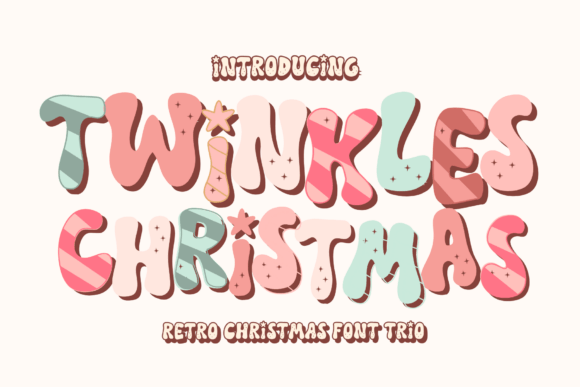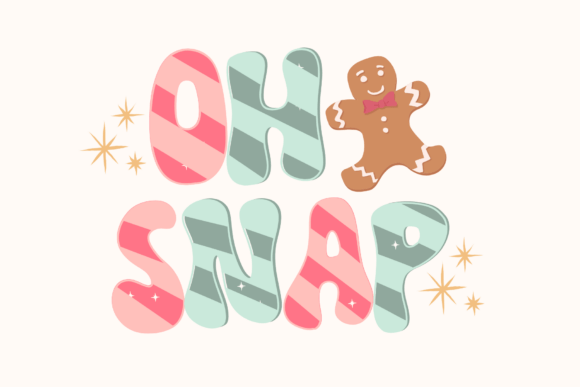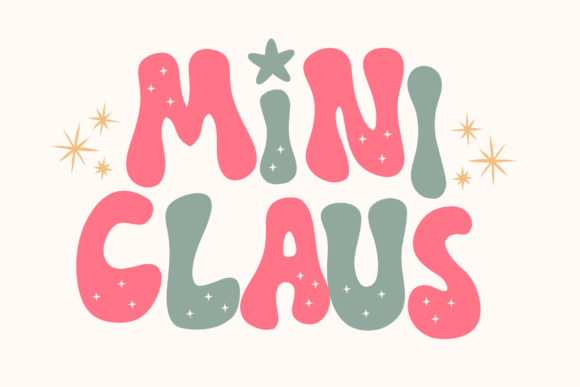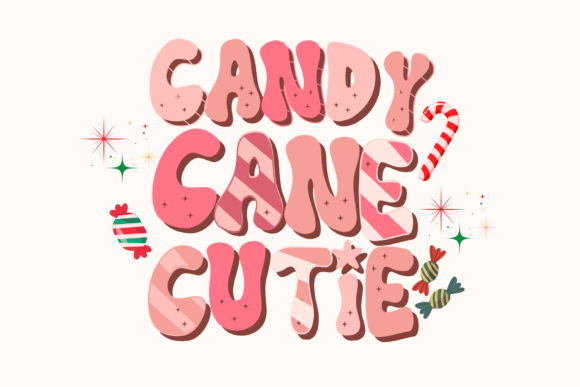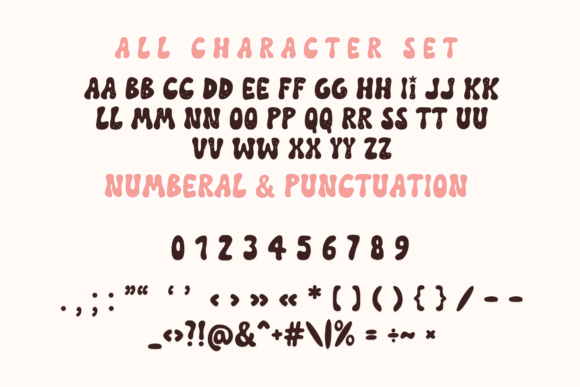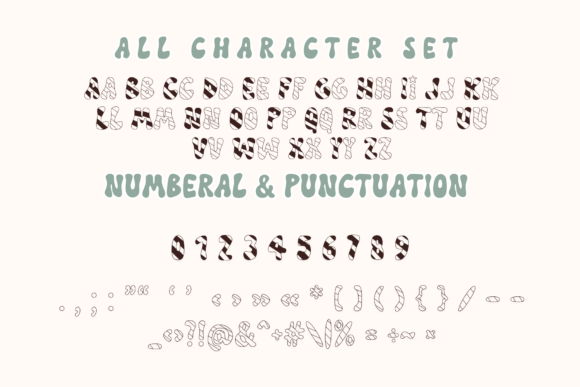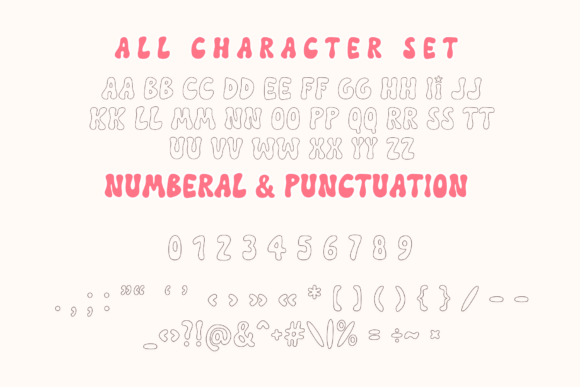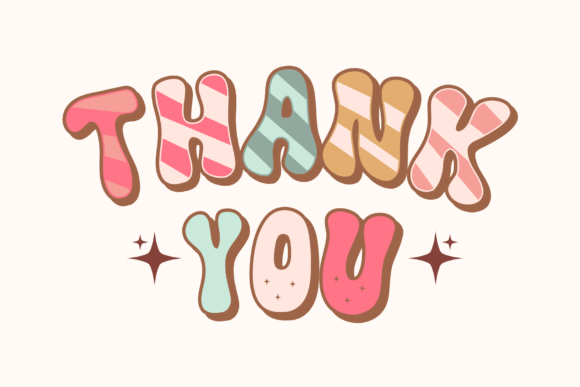
Twinkles Christmas Font
Twinkles Christmas is retro Christmas font trio. It embodies playfulness and authenticity and is the perfect choice for all your favorite projects such as blog posts, logos, branding, ads, invitations, greeting cards, planners, photo albums, decorations, and more. Add it to any of your designs, and enjoy the results!